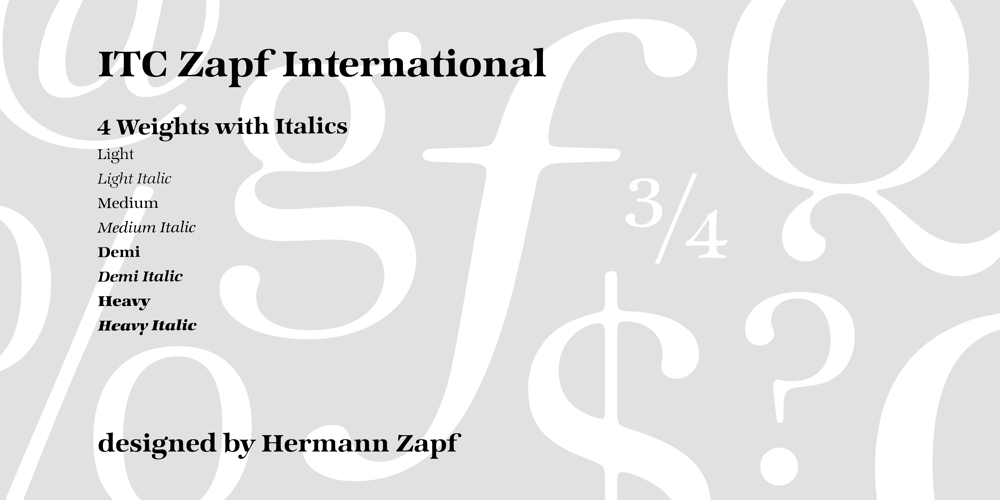
ITC Zapf International Font Family was designed by Hermann Zapf and published by ITC. ITC Zapf International contains 8 styles and family package options. Zapf International font is the work of German designer Hermann Zapf, formal enough for widespread use yet tempered with calligraphic warmth. Vigor in the italics is achieved more from design than from slant. One of the distinguishing characteristics of Zapf International is its graduation of weights. Light and medium are relatively close and equally eloquent for text. Demi is a full two steps heavier than medium and heavy several steps beyond demi.